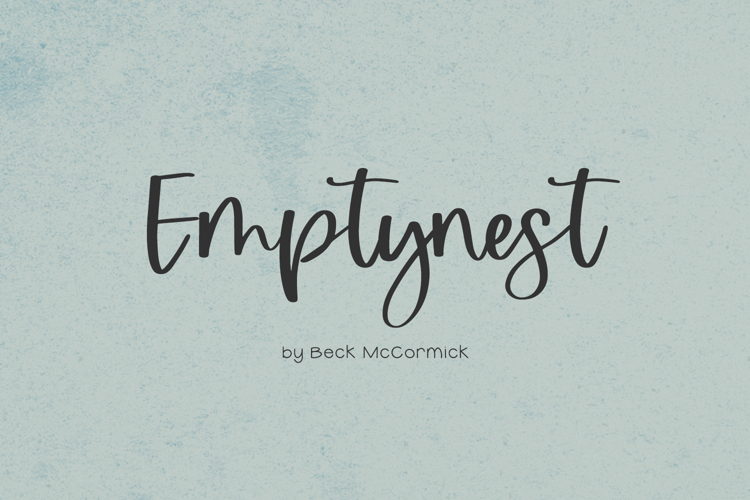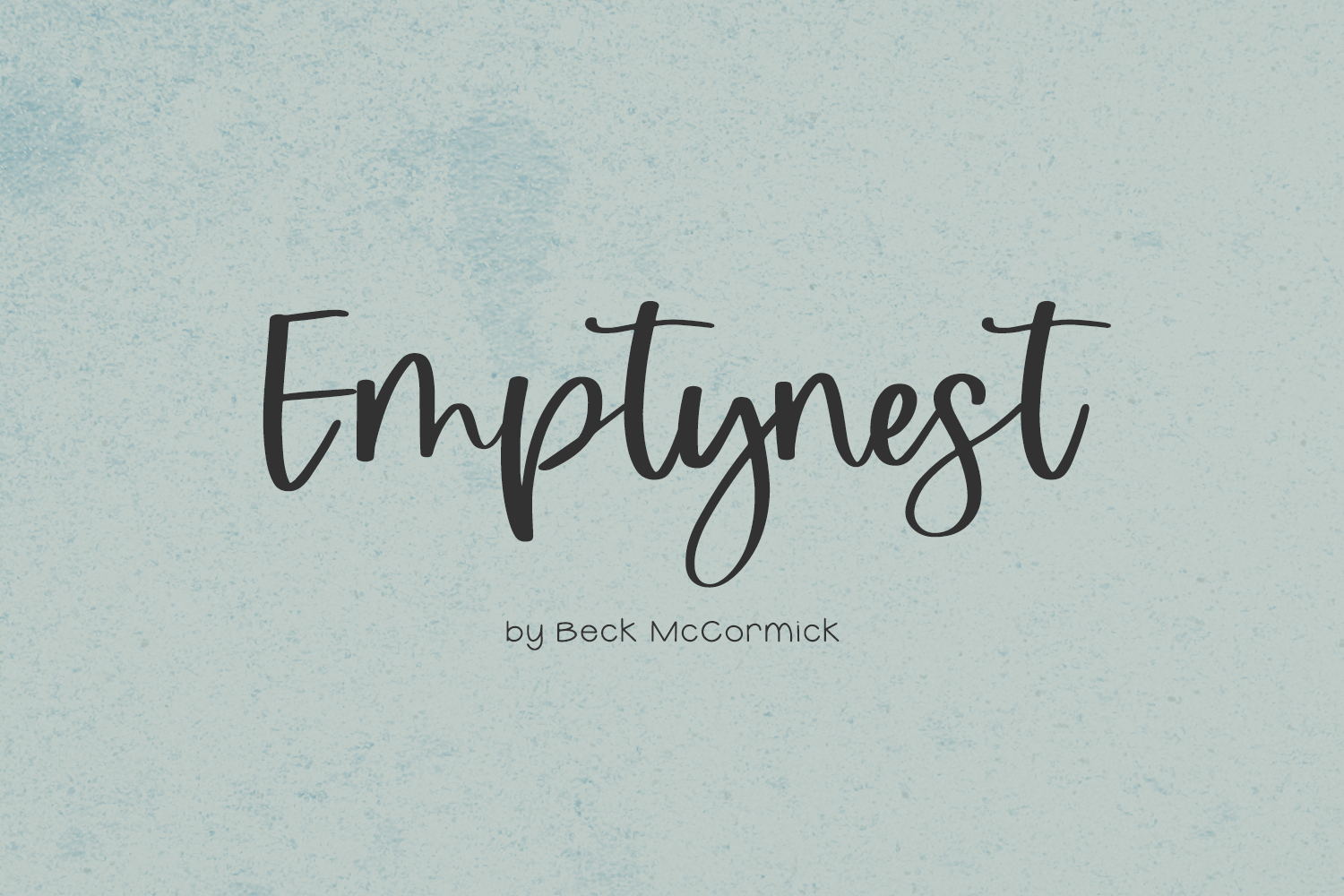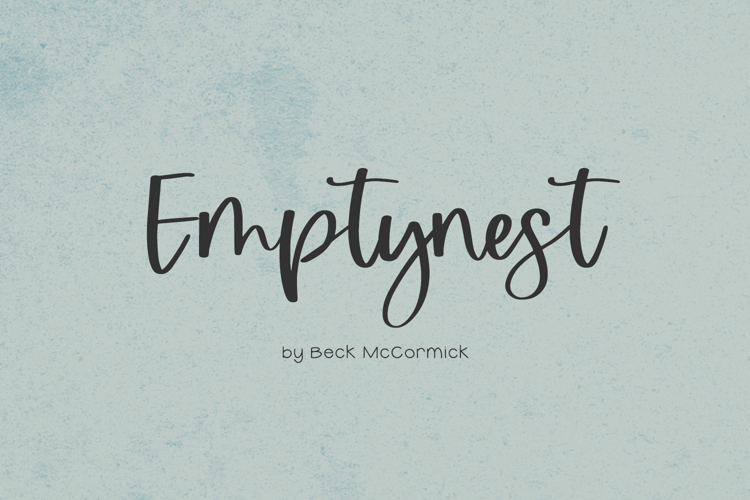
Introducing Emptynest, a modern calligraphy script. Emptynest is cute & bouncy.
Emptynest includes:
- 8 alternate lowercase characters - d, g, h, j, k, l, r, y
- 1 ligature - tt